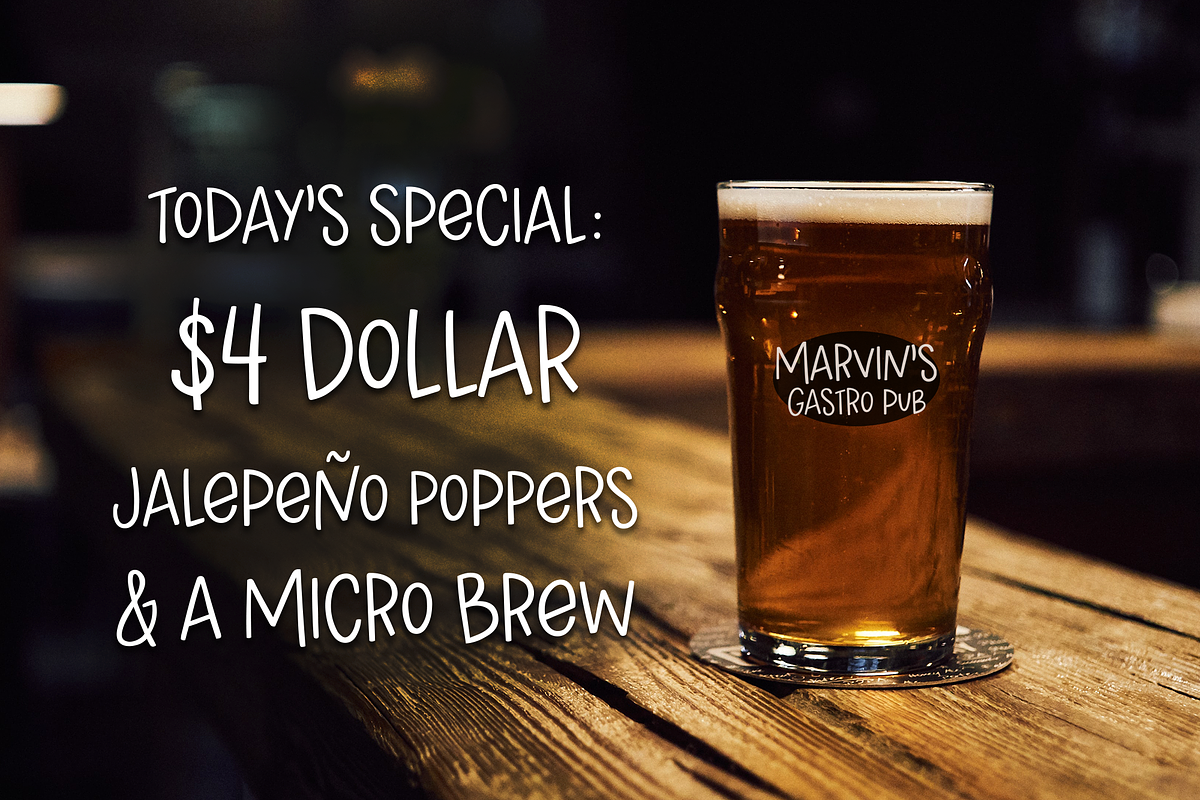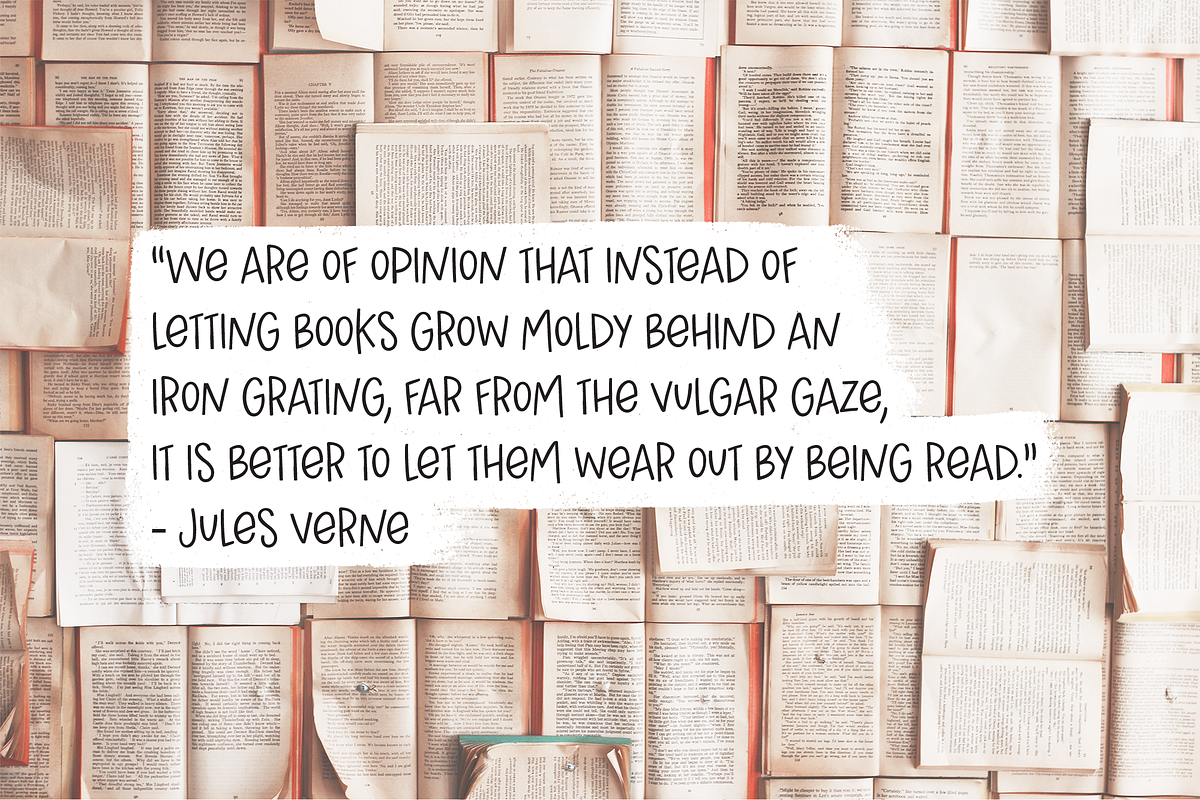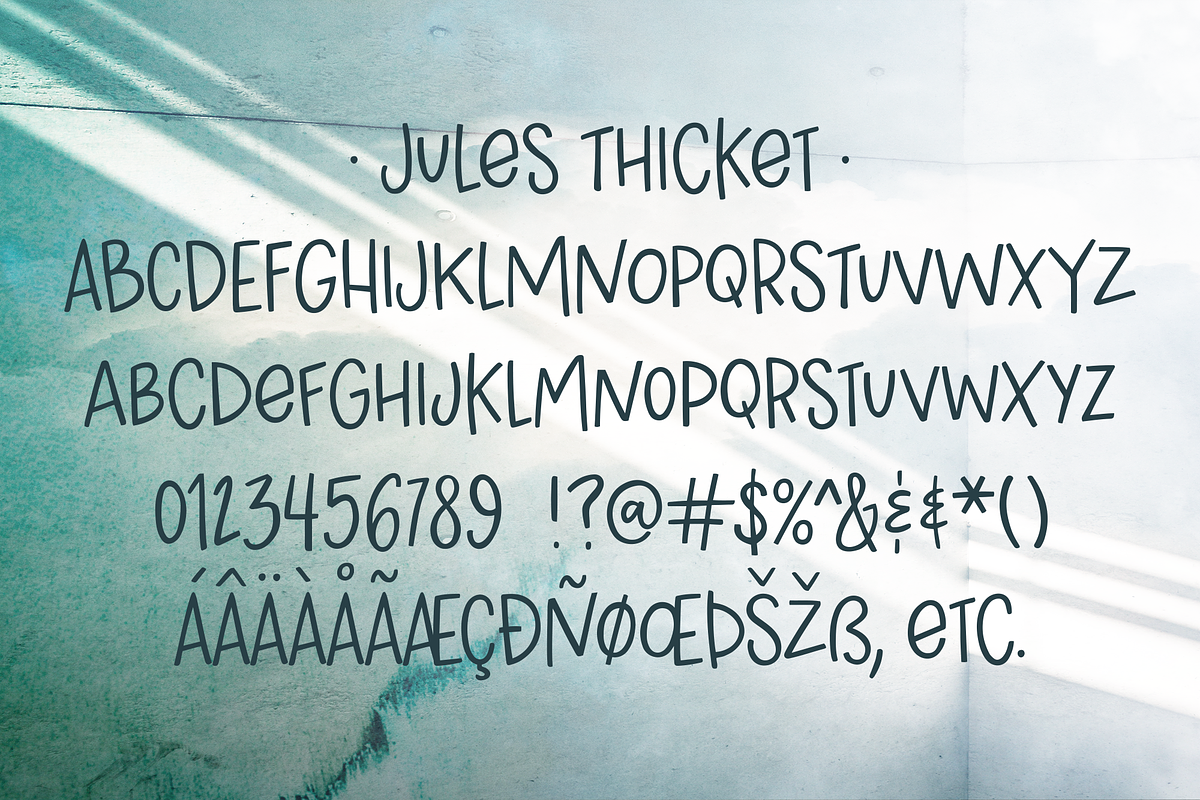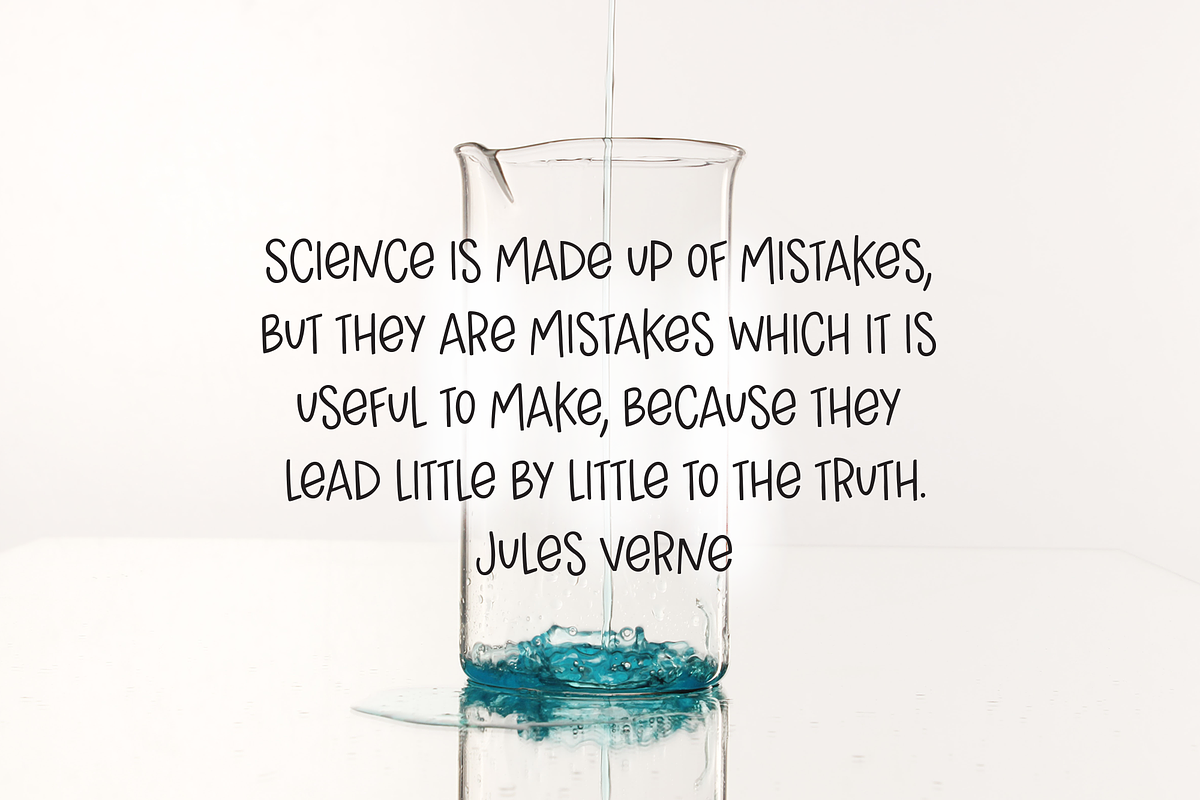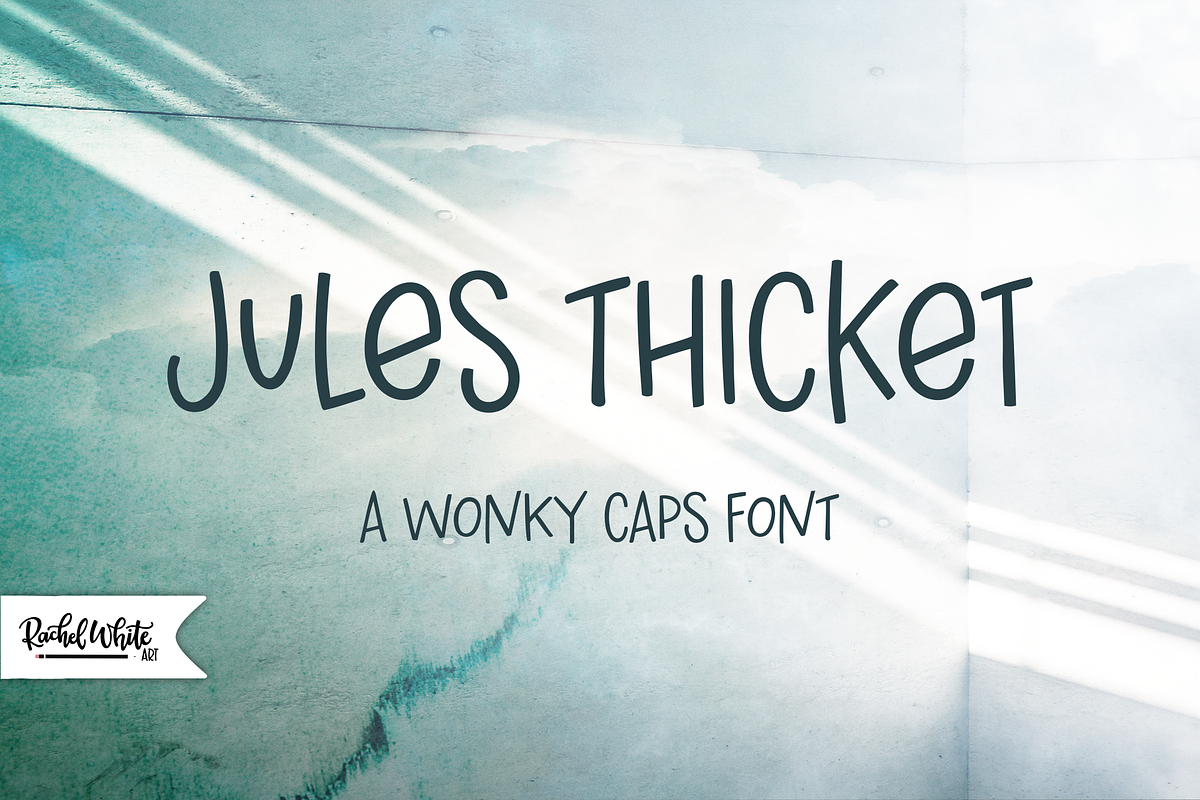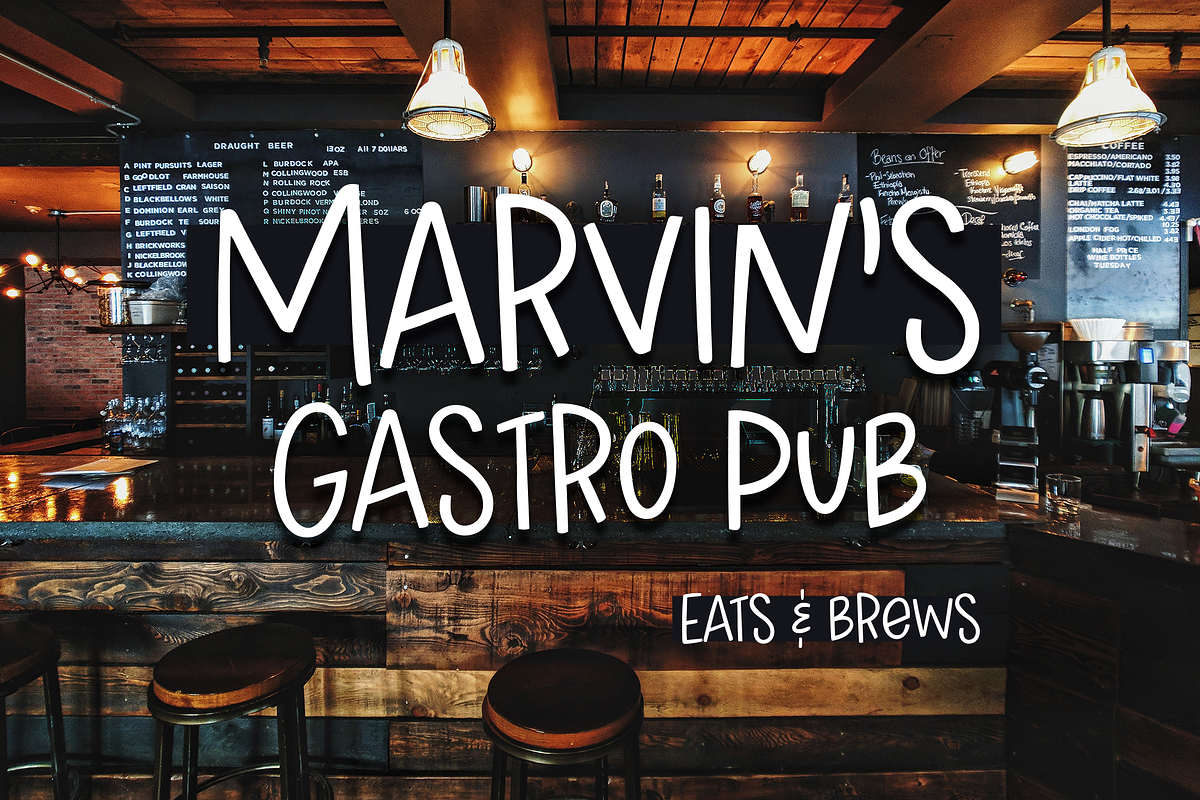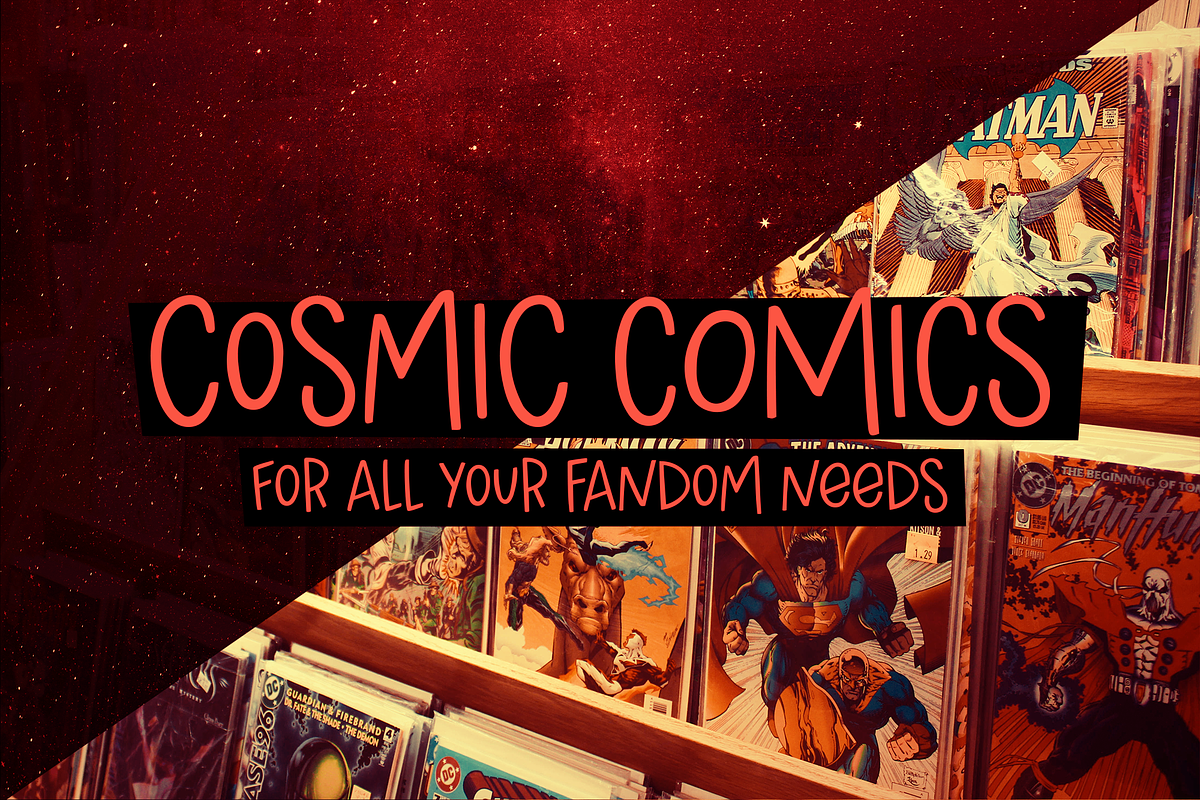
Jules Thicket, a wonky caps font
Jules Thicket is a wonky, hand-drawn caps font with a quirky charm and a touch of woodland magic. The uneven, slightly wiggly letterforms give it a playful, homemade feel, perfect for storybook designs, kids’ products, posters, and whimsical branding.
It’s fun, a little offbeat, and full of character—ideal for any project that needs a friendly, imaginative look.
Great for: Children’s books, packaging, logos, quote graphics, story-inspired designs